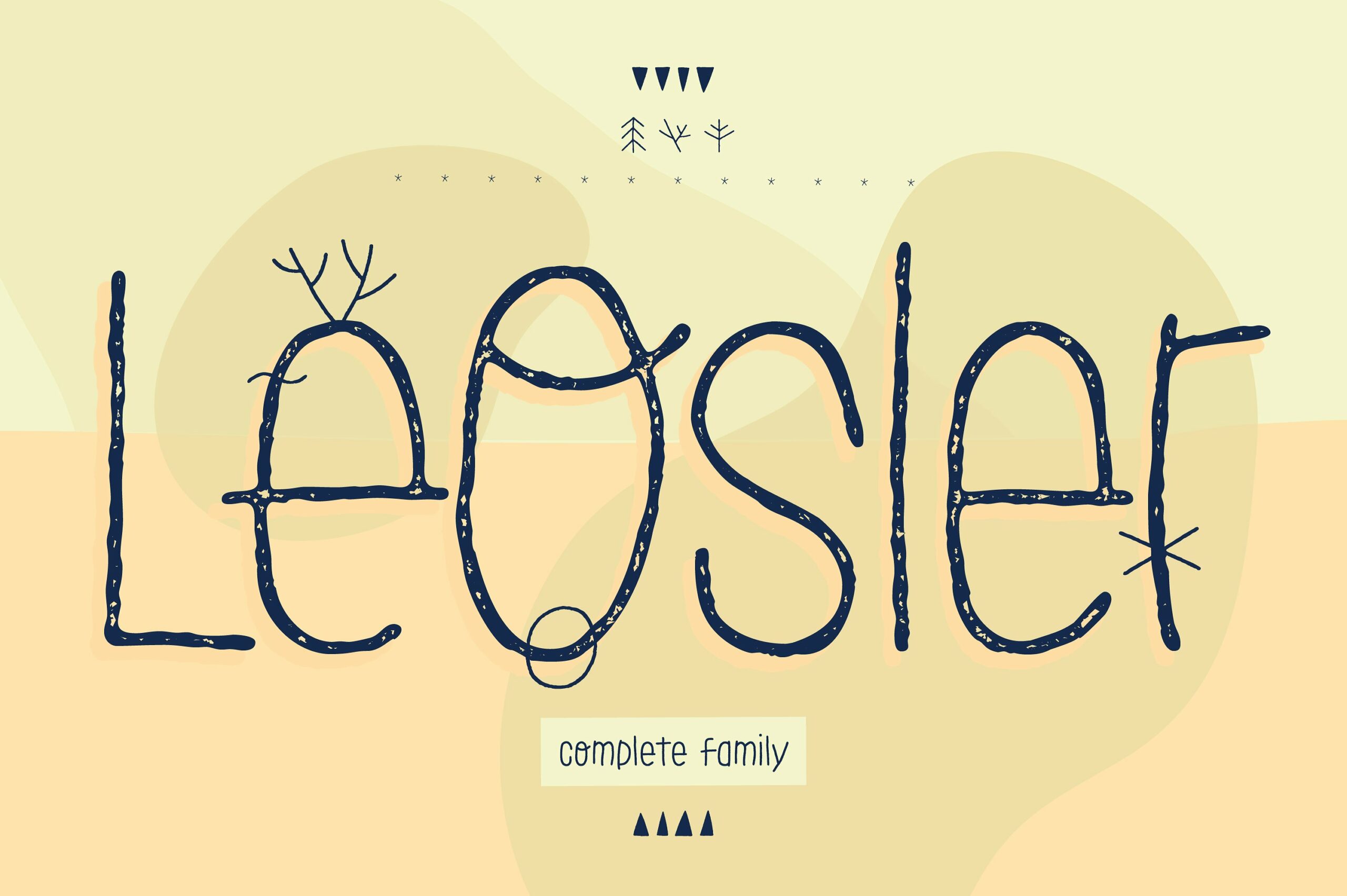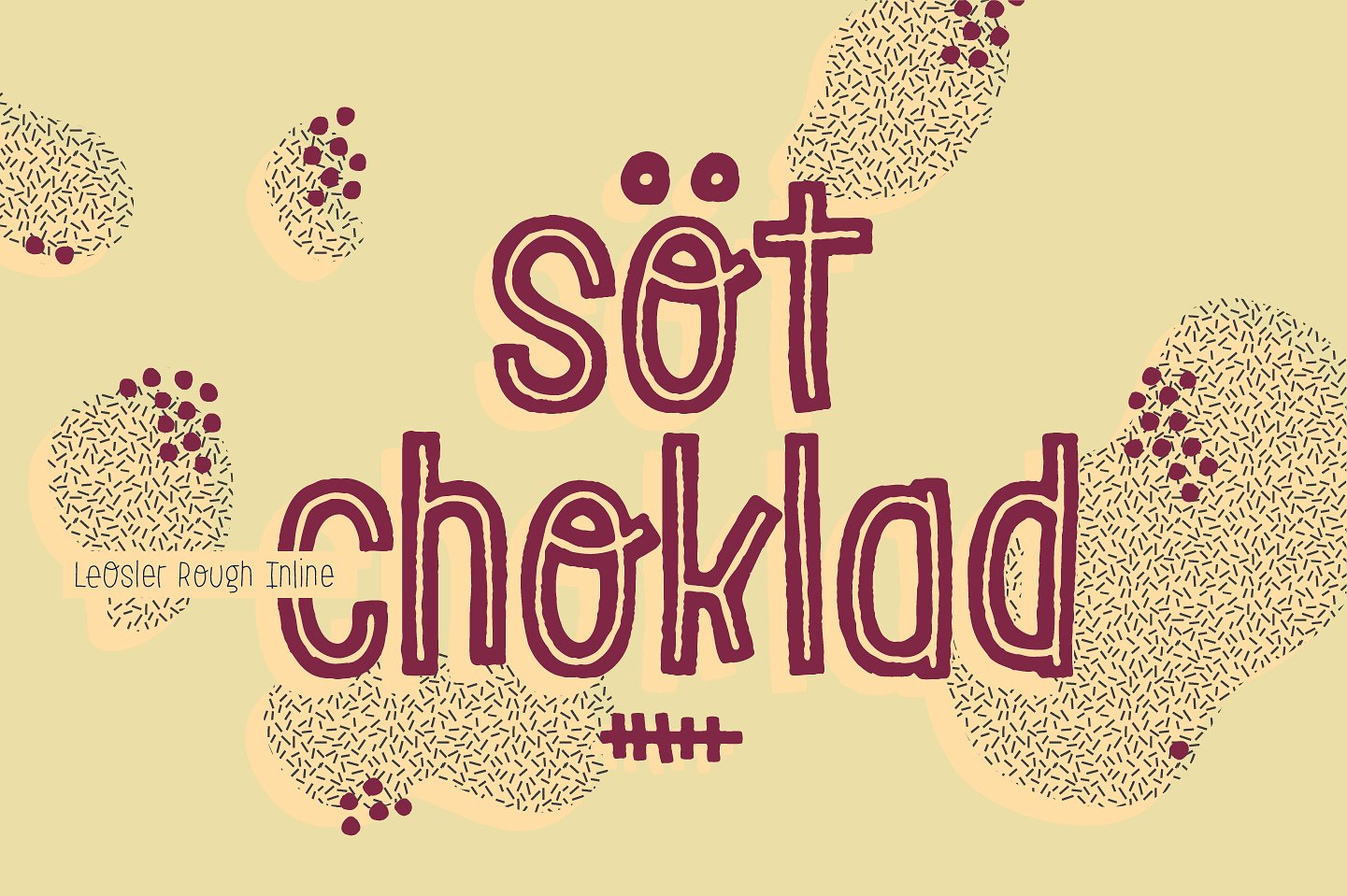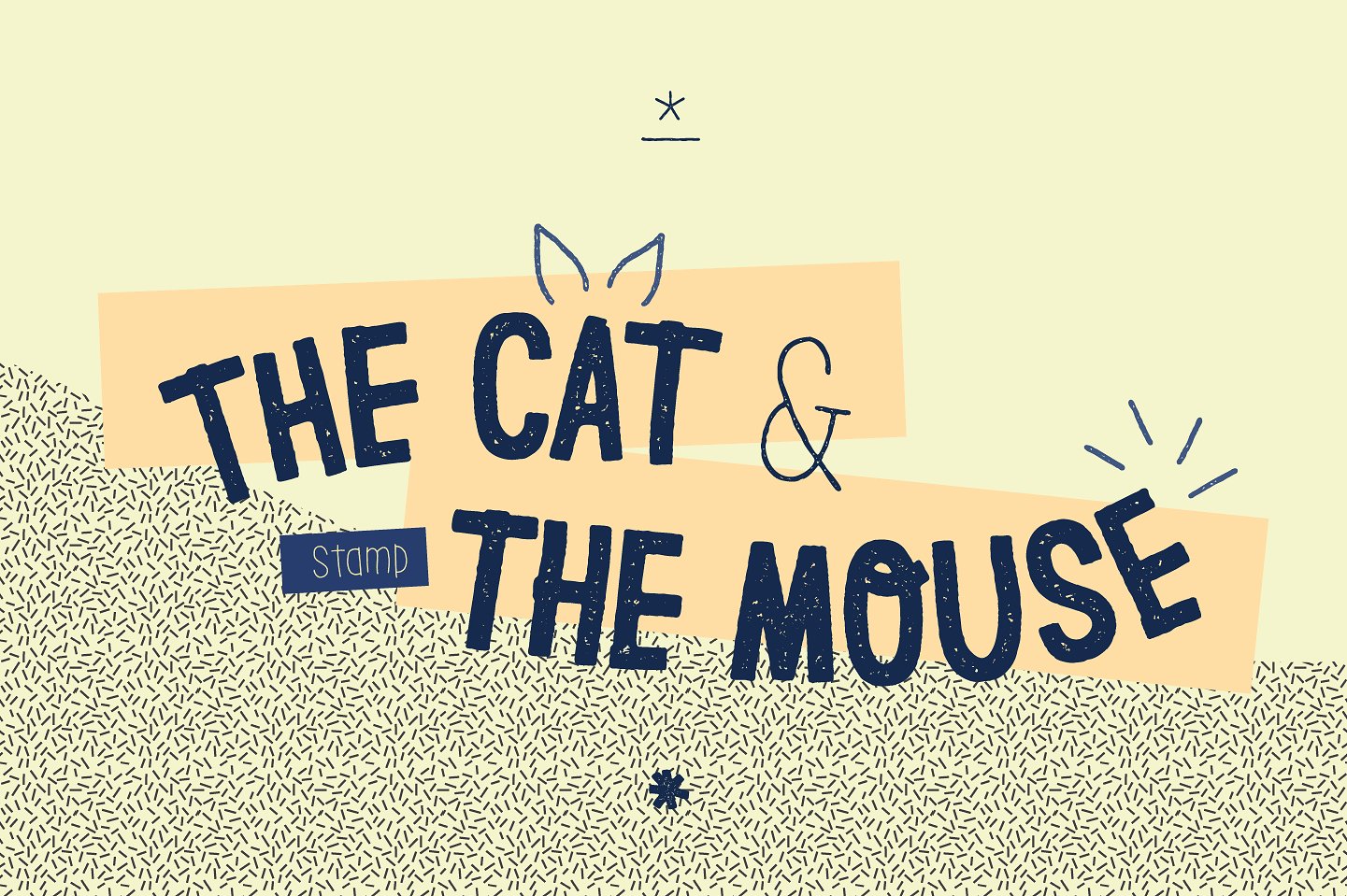
About LeOsler Font
“LeOsler is a decorative, fun, handwritten font which will bring a personal look to your work.
This font includes the Latin, Greek and Cyrillic alphabets, and can be used in a wide range of languages, including English, Spanish, Italian, French, German, Polish, Czech, Vietnamese, Russian, Greek, among many others.
“LeOsler also offers a set of icons that will provide a much more personal look to your work! Available in Regular and Light weights, and Rough and Stamp styles, for a perfect match with the font styles.”